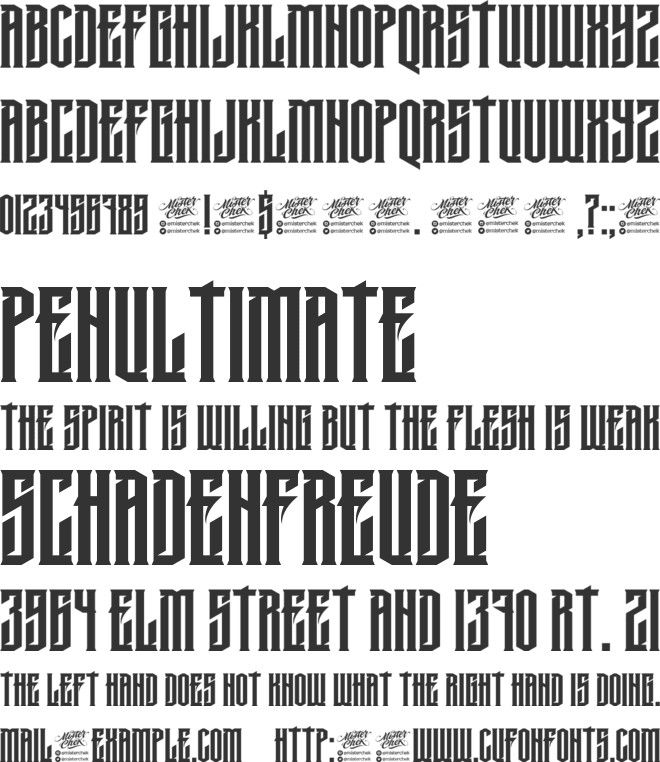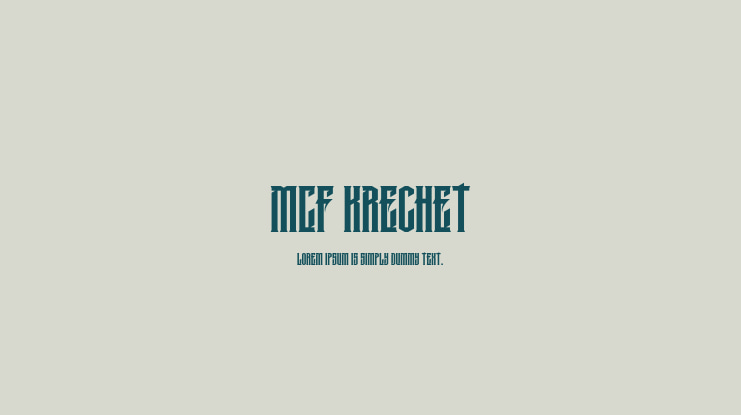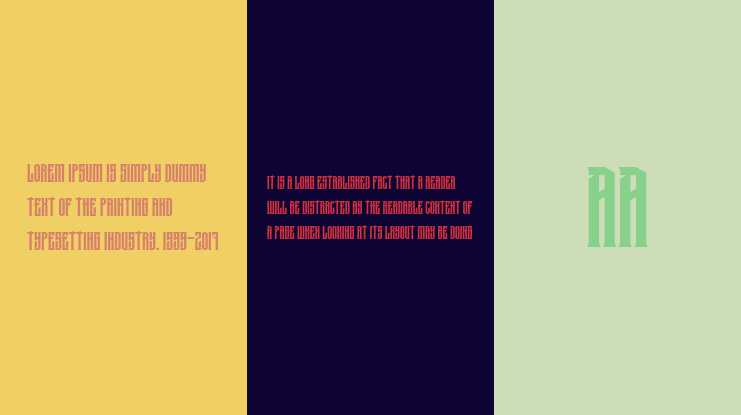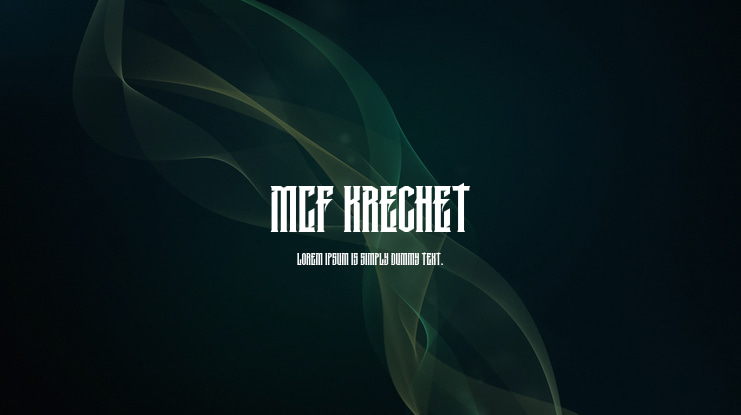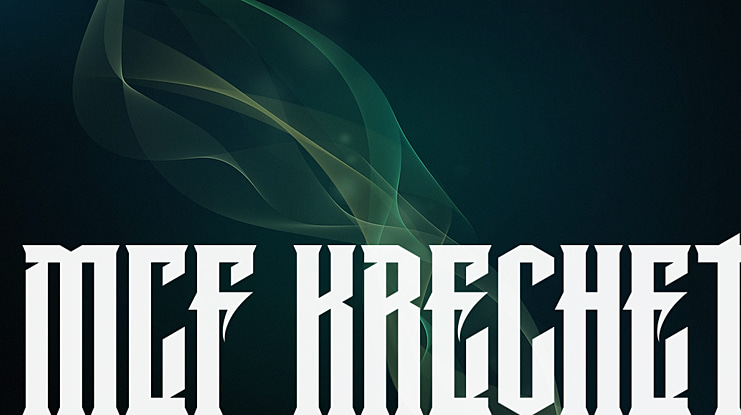
MCF krechet Font
This is a custom font by Mister Chek which is applicable for any type of graphic design - web, print, motion graphics etc and perfect for t-shirt designs, logos and tattoo designs.